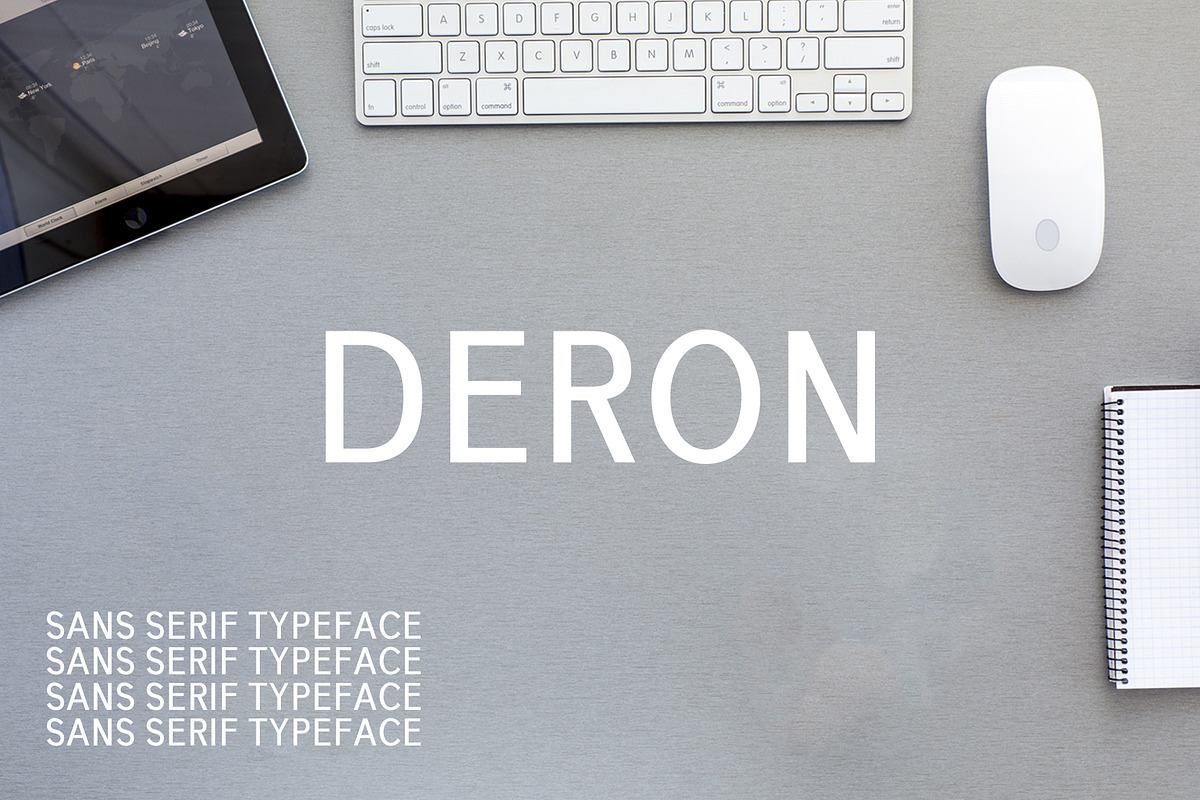
Deron Sans Serif Font Family Pack Free Download is a modern and versatile typeface family designed for both print and digital projects. With a variety of weights and styles, this font family provides flexibility for branding, websites, editorial design, presentations, and more.
Its clean lines, geometric shapes, and balanced proportions ensure clarity and readability, making it perfect for everything from professional corporate materials to creative advertising campaigns. Whether you're designing a sleek website, a business logo, or marketing collateral, Deron offers consistency and style. Deron Sans Serif Font Family Pack Free Download lets you explore all of its beautiful styles in personal projects before purchasing a commercial license.
Elevate your design work with Deron — the sans-serif font family that brings modern sophistication and flexibility to every project.